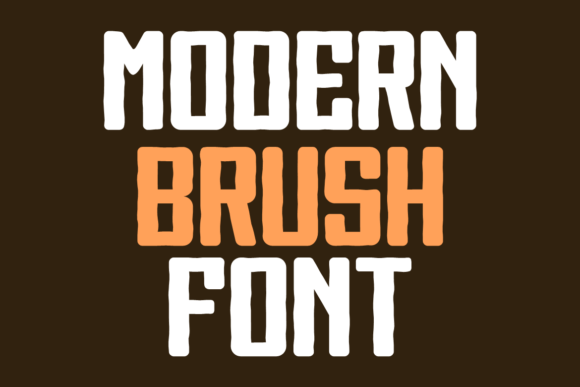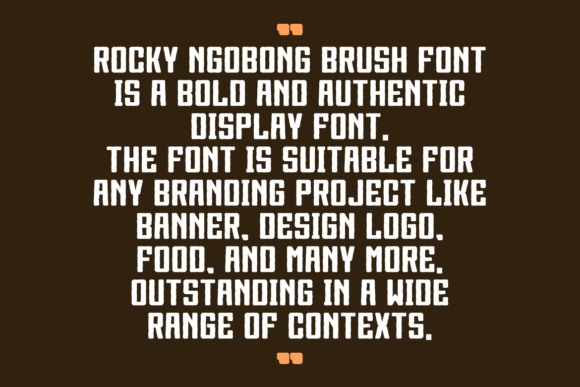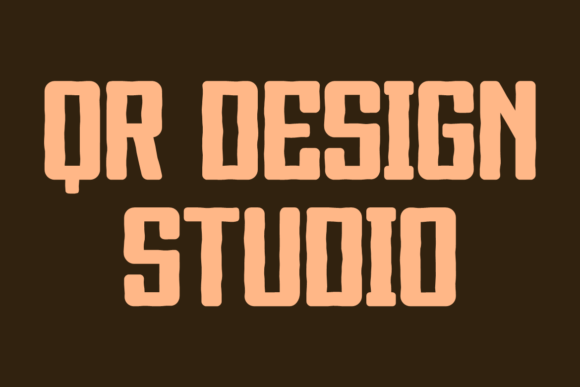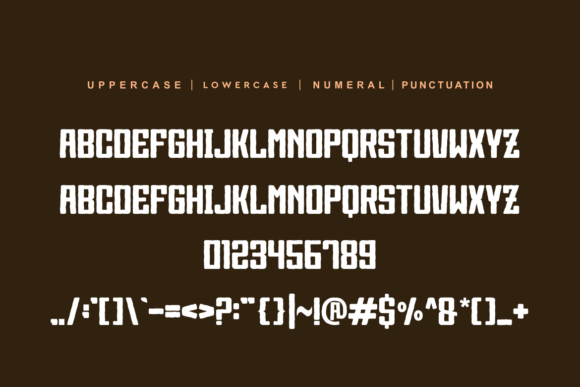
Introduction to Rocky Ngobong Brush Font
Rocky Ngobong Brush Font is a bold and authentic display font.
This lovely font is suitable for any branding project like logo, t-shirt printing, food, and many more Outstanding in a wide range of contexts.
Key Features of Rocky Ngobong Brush Font
Why Choose Rocky Ngobong Brush Font?
Rocky Ngobong Brush Font offers exceptional quality and versatility, making it a valuable addition to your design toolkit. Whether you’re creating for personal projects or commercial use, Rocky Ngobong Brush Font delivers professional results.